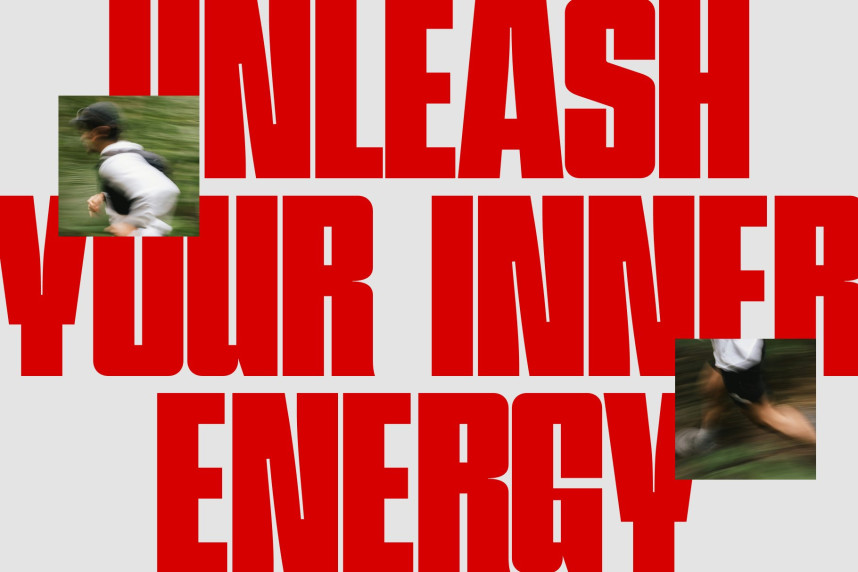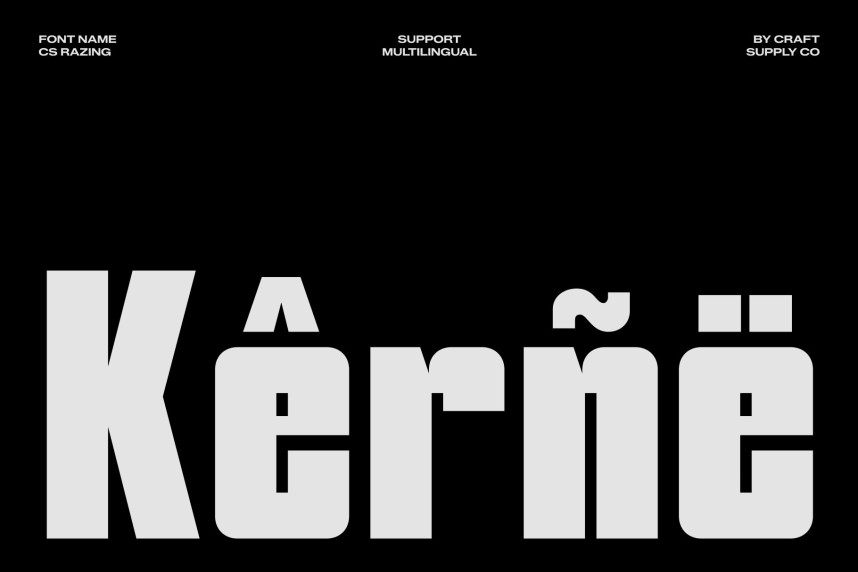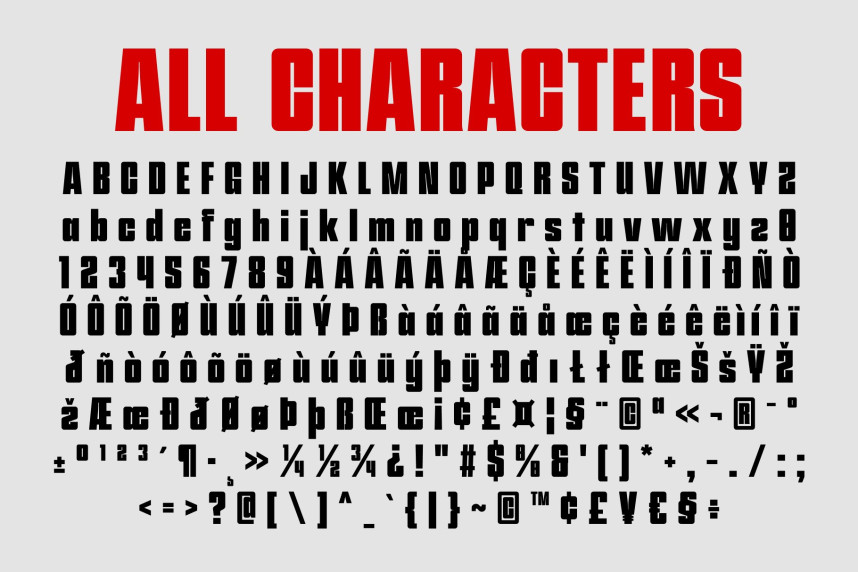
CS Razing Font
CS Razing Font – Bold Industrial Display Sans Serif: Where Vintage Strength Meets Modern Precision
Geometric Construction with Commanding Presence
This is a bold display sans serif designed with a powerful industrial character. Its clean geometric construction creates a commanding visual presence, while the balanced proportions and bold forms ensure exceptional readability and impact. Every letter is crafted to project confidence, making the font ideal for attention-grabbing display typography.